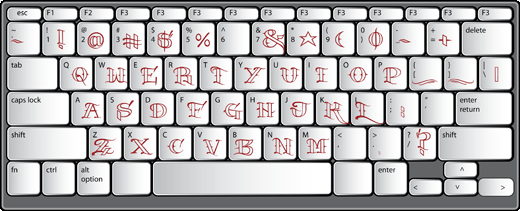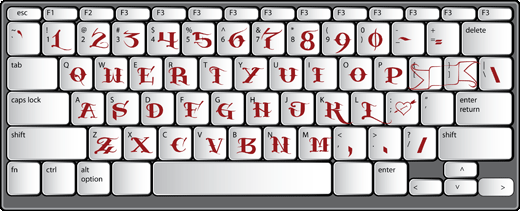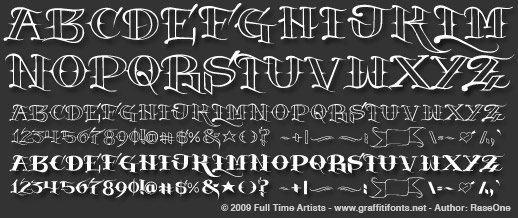
SkinArt™
SkinArt™ has a hand-made apearance. The style is similar to vintage Tattoo lettering. The caps are in an outline style & the lowercase keys give you a flat, solid style, numbers, punctuation & flourishes are included in this typeface.
SkinArt tattoo lettering alphabet
SkinArt font Capitol Letters
SkinArt font lowercase letters
This typeface includes 2 full tattoo style alphabets that can each be used alone or you can combine the 2 fonts to create fill & gradient effects. Add the included banner pieces or use this font along with your own banner & flag graphics to create realistic body art & classic tat style artwork.